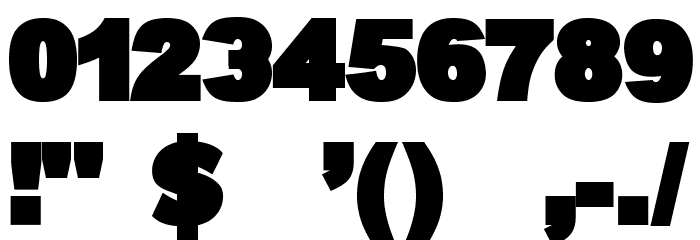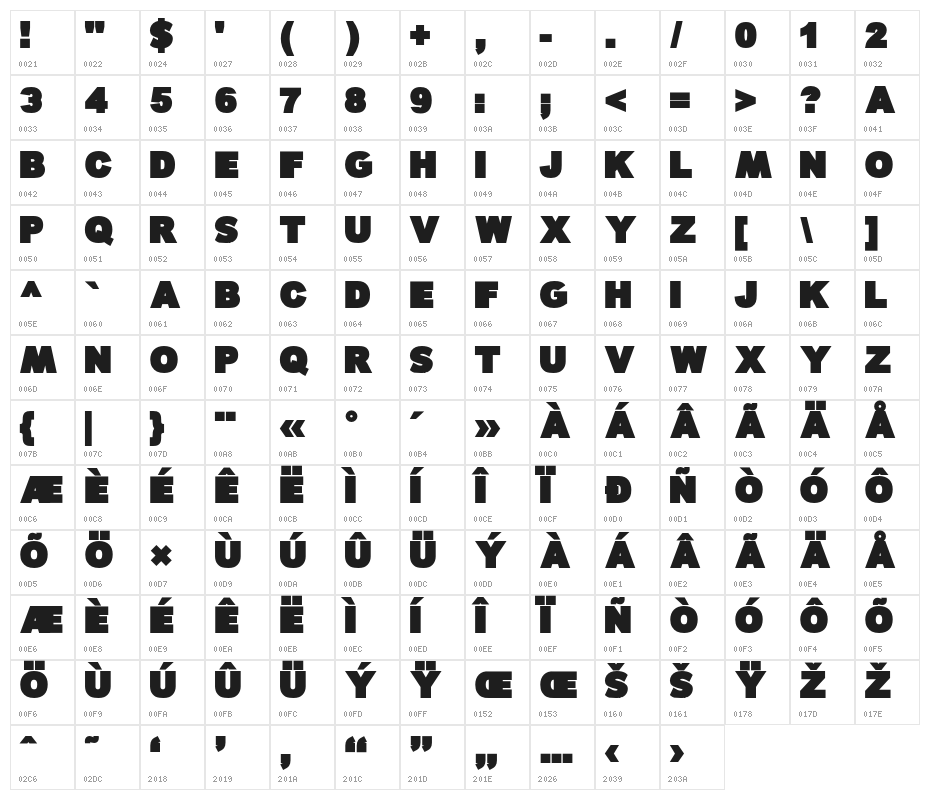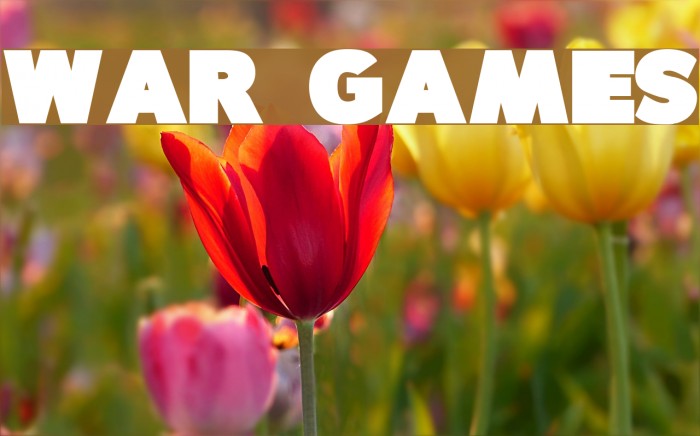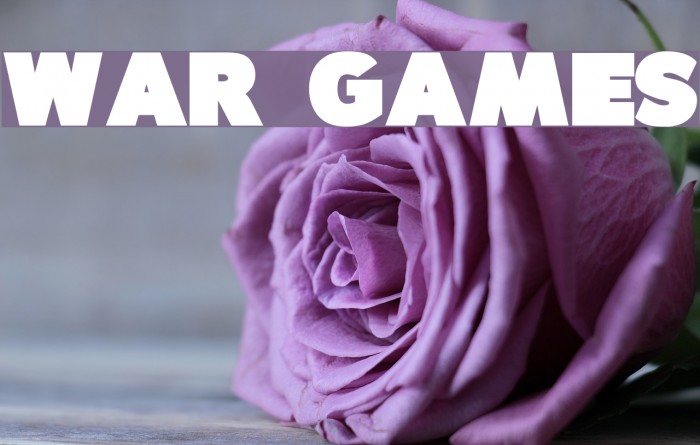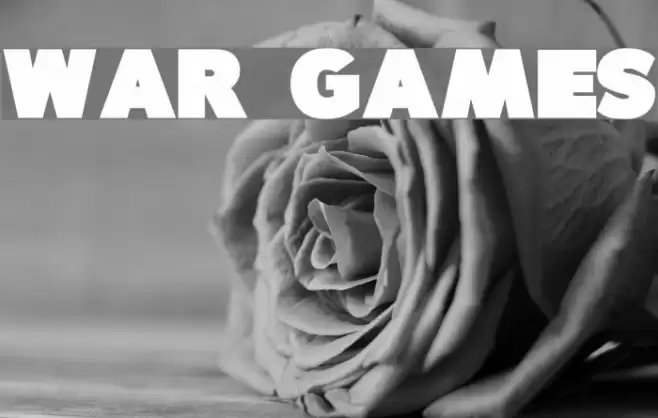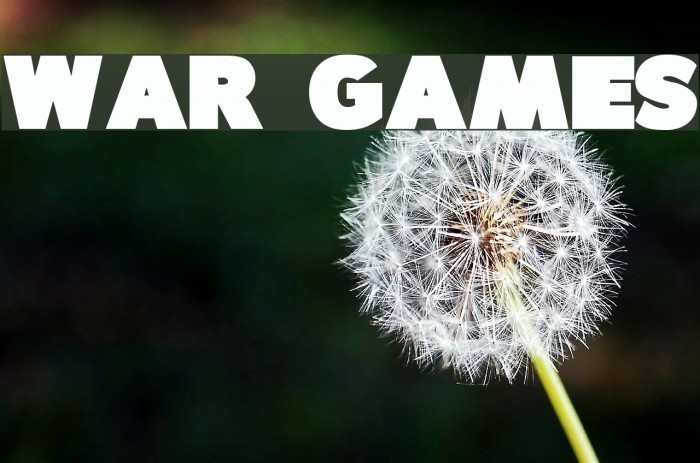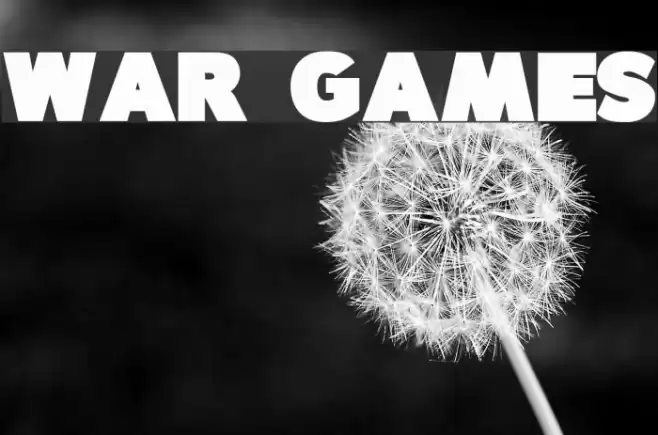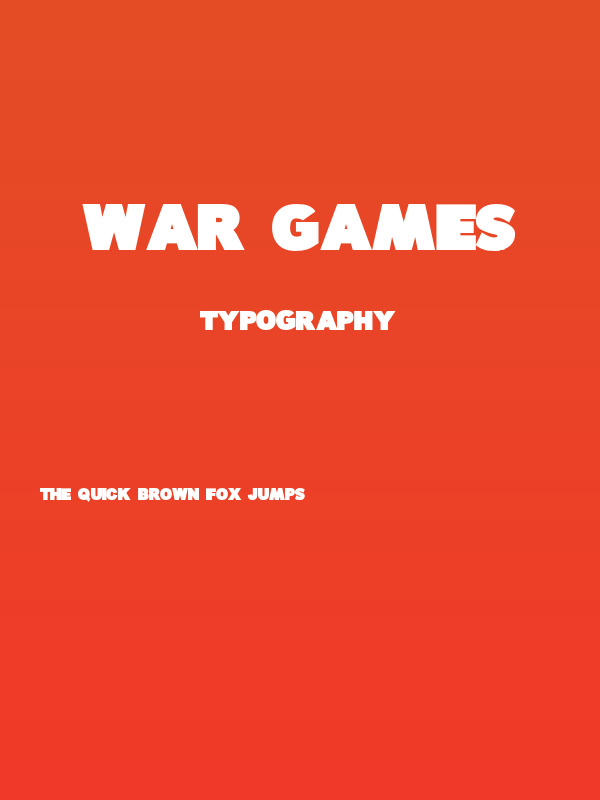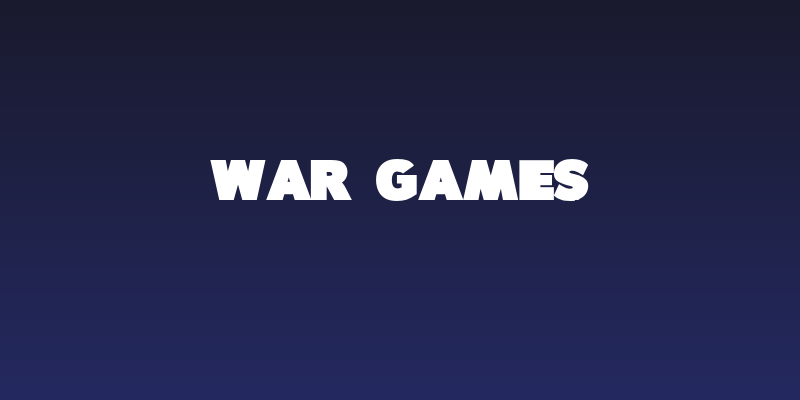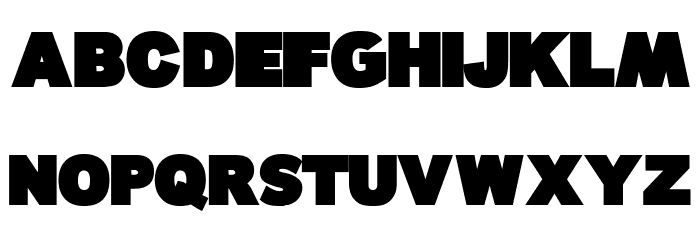
War Games Font
War Games Description
This bold, impactful font features thick, heavy strokes that convey a strong, commanding presence. The characters are uniformly wide, with a slightly condensed appearance that enhances their boldness. The font's design is clean and straightforward, with minimal contrast between thick and thin strokes, giving it a modern and robust look. The uppercase letters are particularly striking, making them ideal for attention-grabbing headlines or titles. The numbers and special characters maintain the same bold style, ensuring consistency across all text elements.
| Proposed Projects | Ideal for posters, headlines, branding, and any project requiring a strong visual impact. |